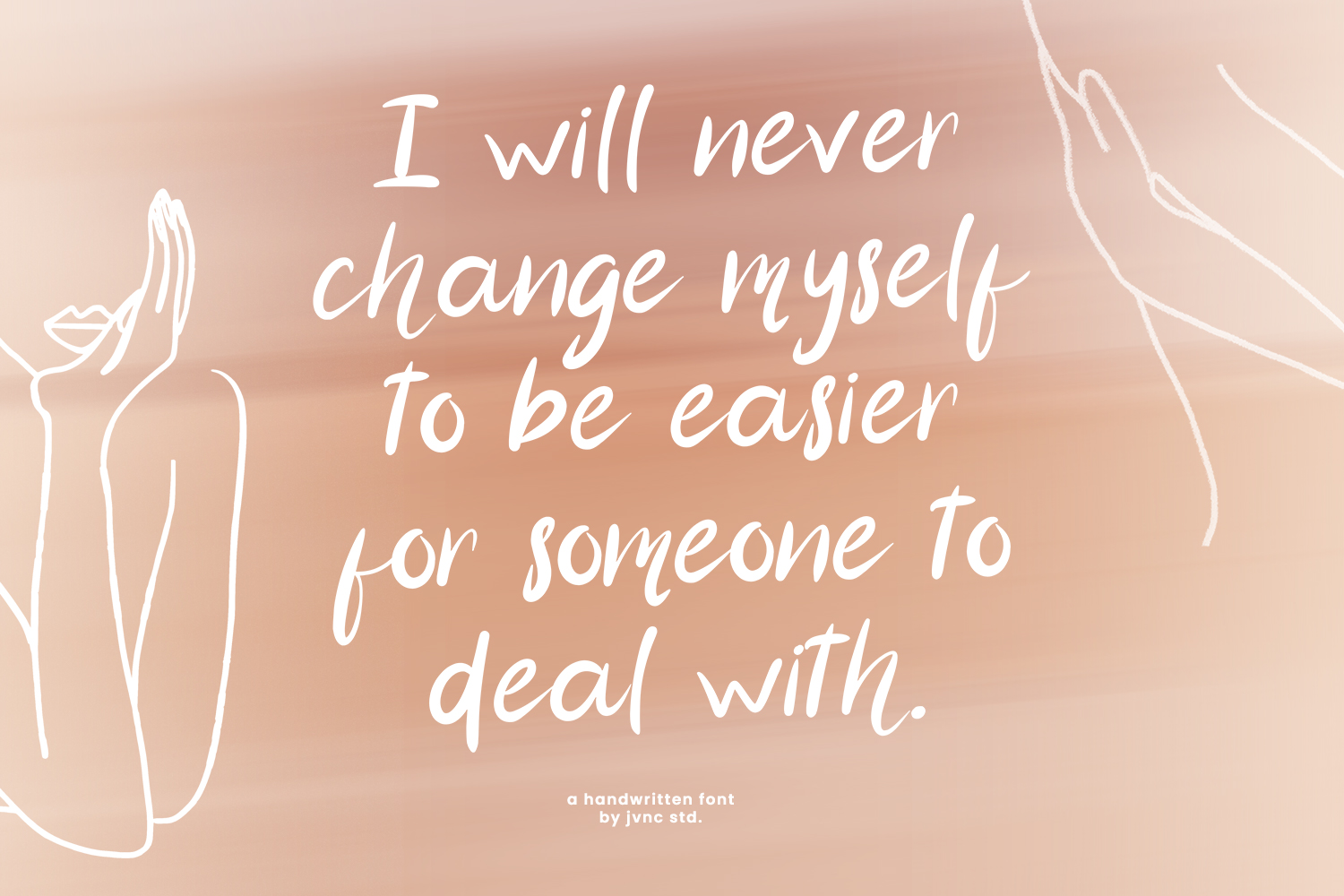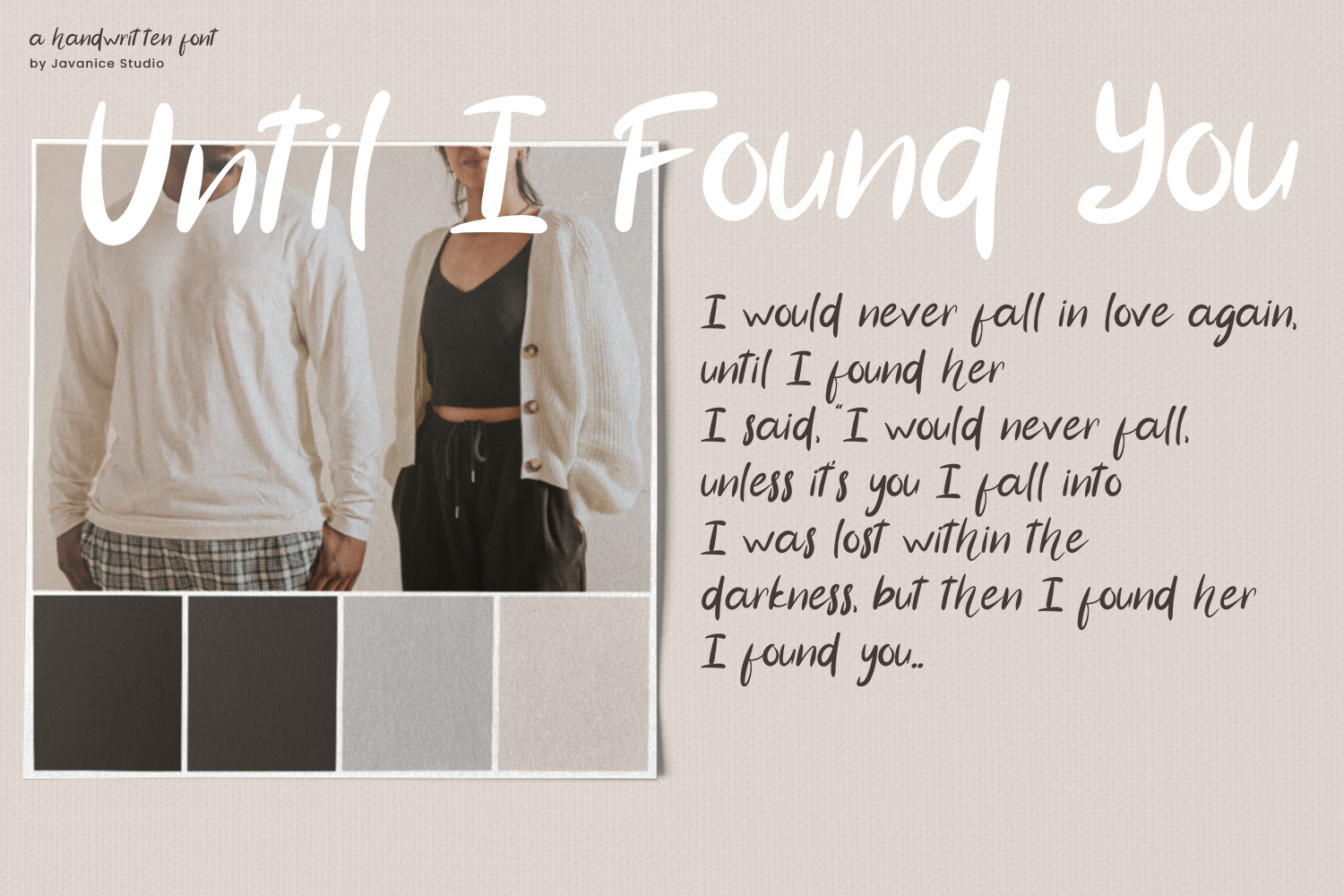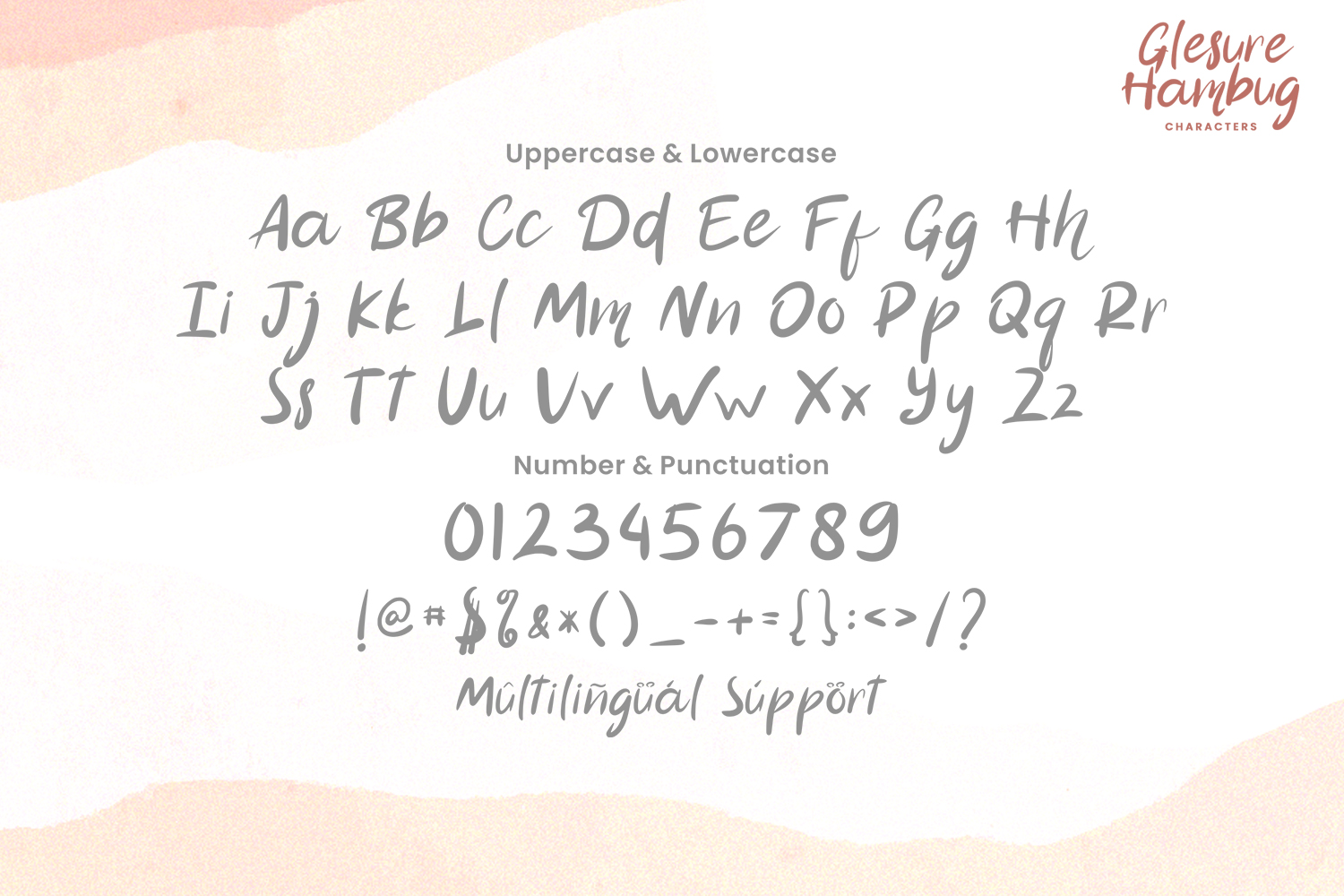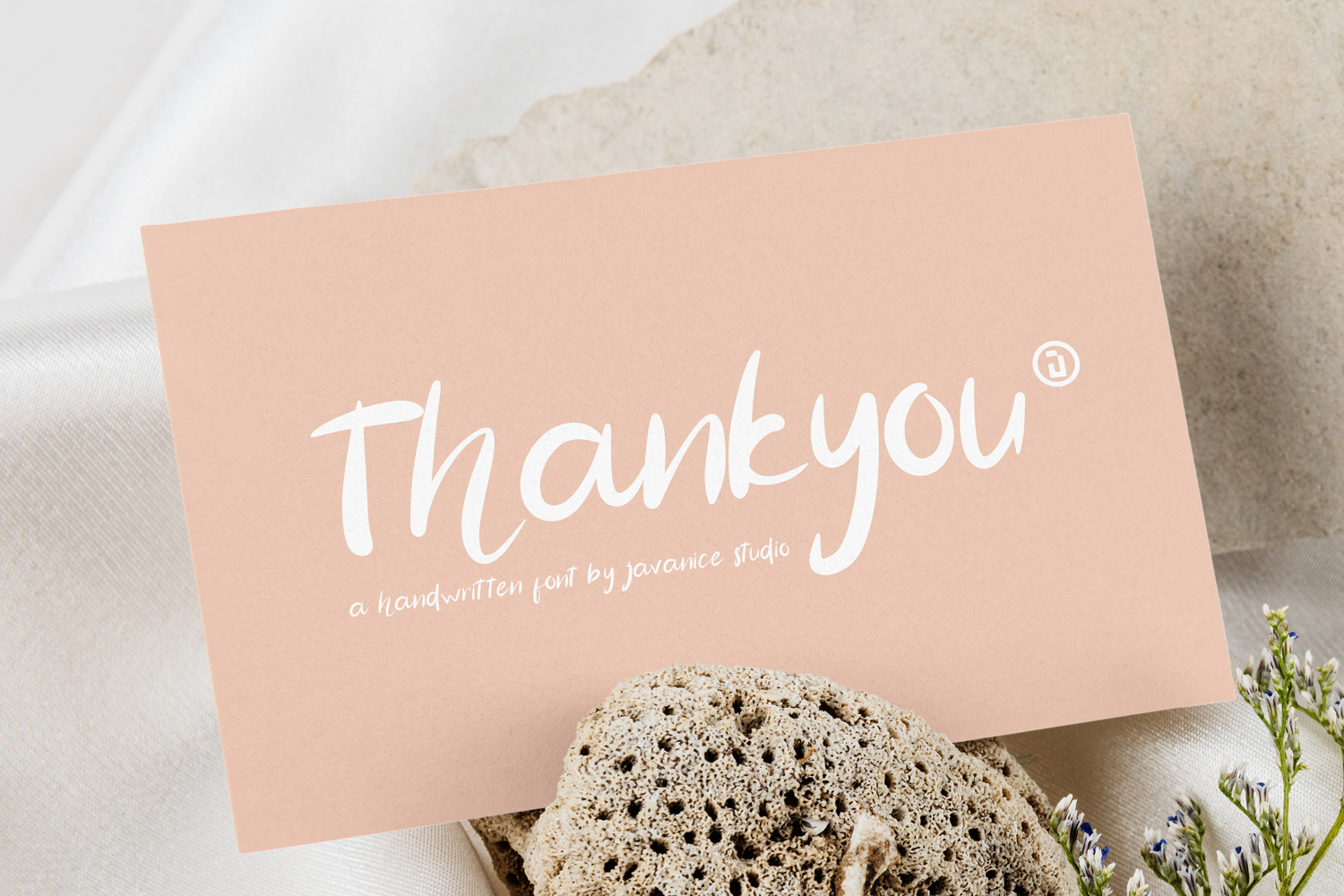
Glesure Hambug Font
Glesure Hambug Handwritten Font
This is a handwritten font. Glesure Hambug is perfect for branding project, apparel, labels, magazines, books, greeting / wedding cards, packaging, fashion, make up, stationery, and any type of advertising purpose or just used to express words above the background.